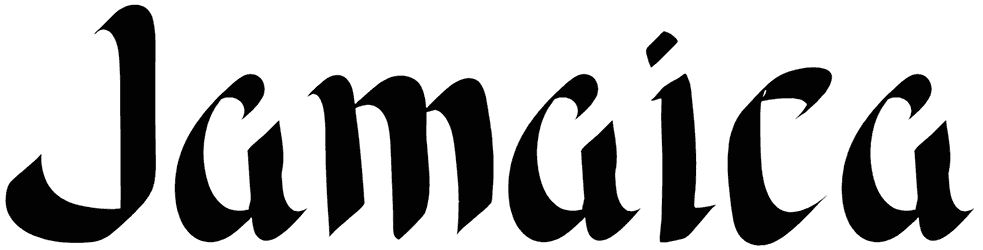
Jamaica Font
Need a native look at your texts? We have just the font for you! This medieval font has a bold design on its characters and radiates a youthful and ninja look. Jamaica font will give a punk vibe to the reader through its pointy and extra-bold characters.
You can use it for any event banners and flyers, comic books, informal texts, and movie titles. All the letters are made with a ballpoint effect to leave an intense impact on the reader.